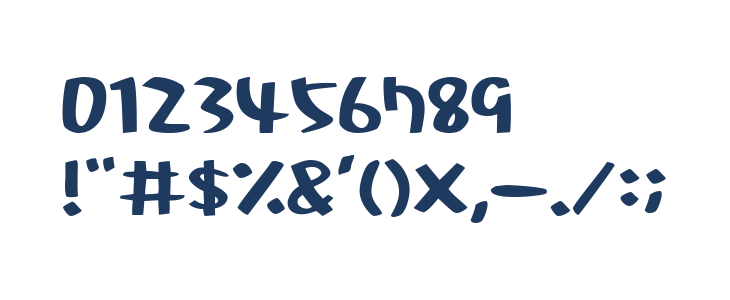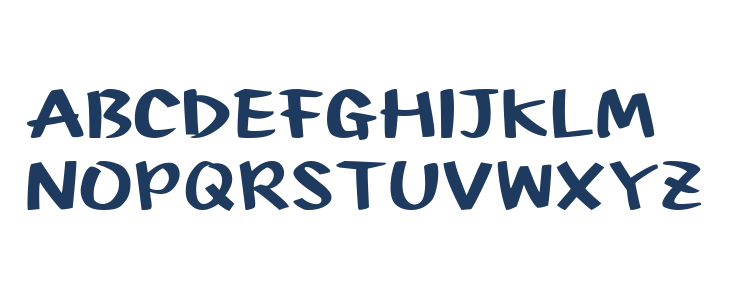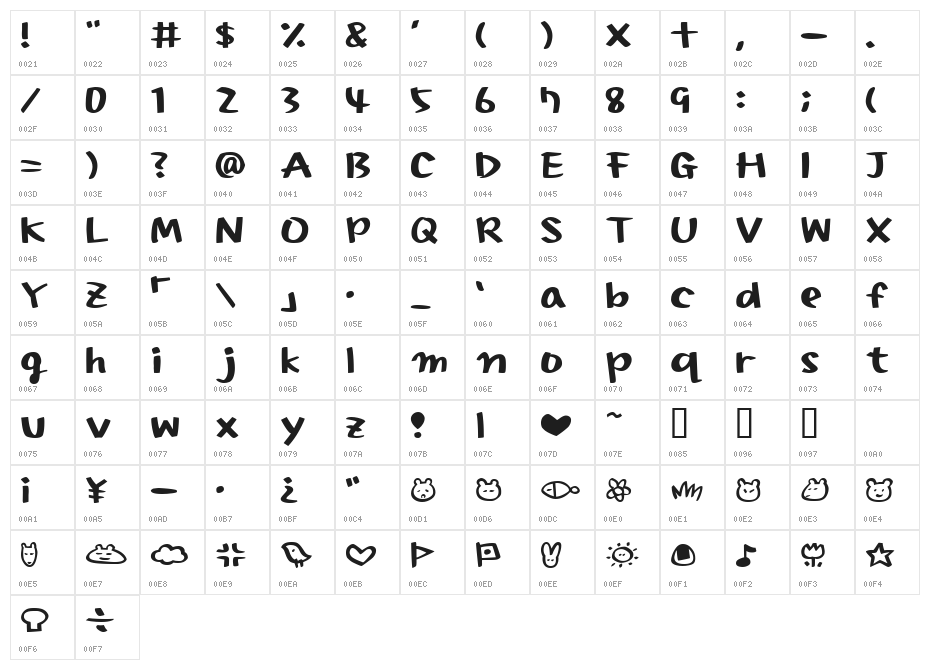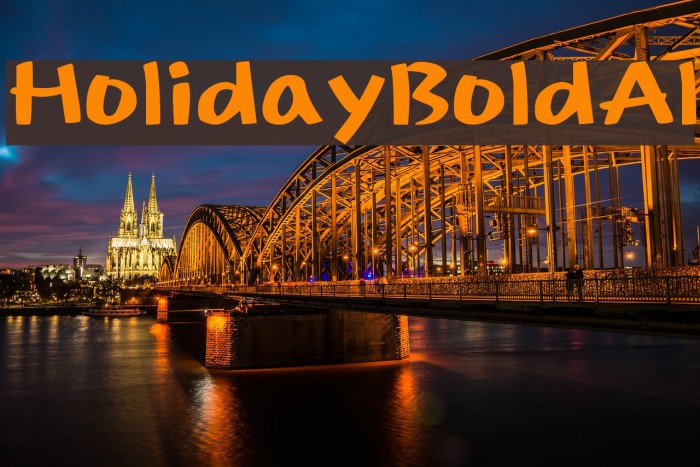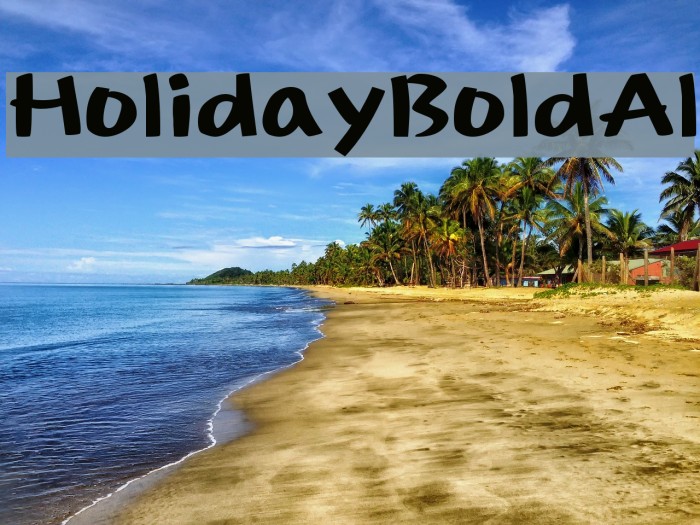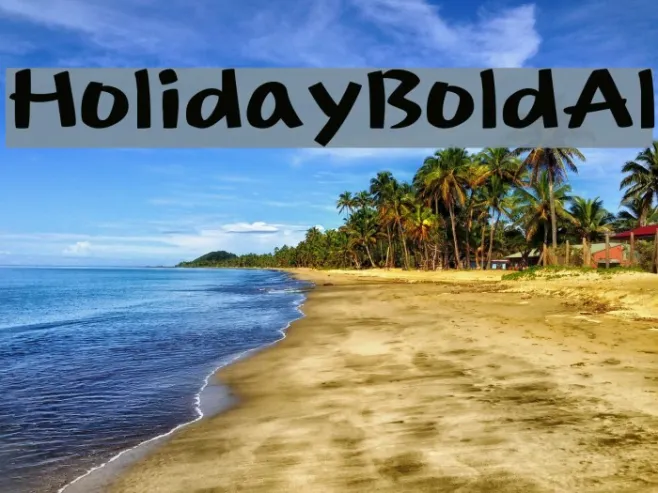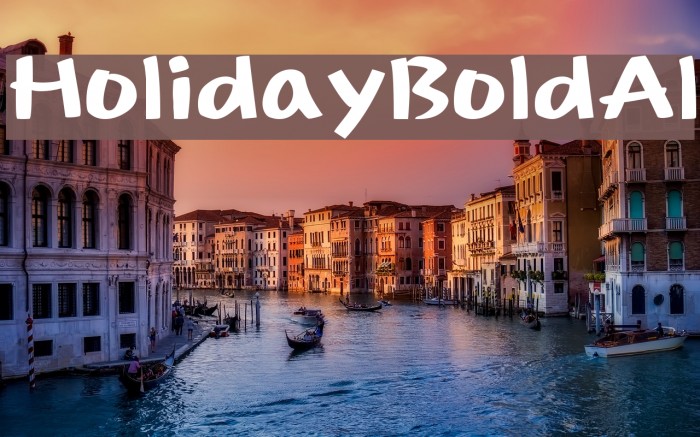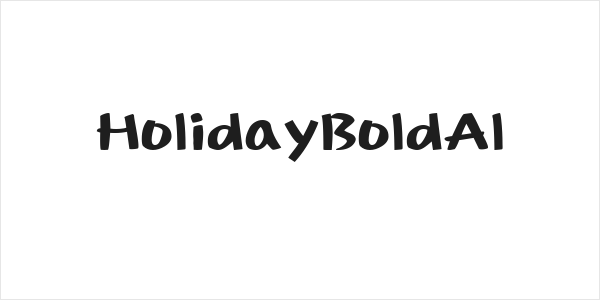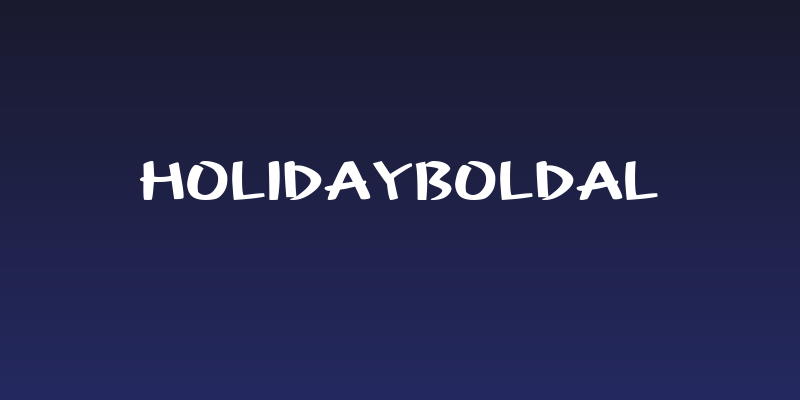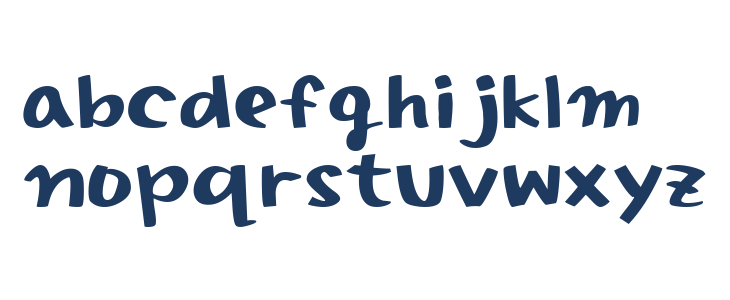
HolidayBoldAl Font
This playful and bold font features a handwritten style with a casual, friendly appearance. The letters are slightly tilted and have a dynamic, lively feel, making them perfect for projects that require a touch of whimsy and fun. The strokes are thick and rounded, providing a sense of warmth and approachability. The font maintains consistent weight throughout, ensuring readability while adding a unique character to each letter. Its informal style is ideal for creative projects that aim to convey a sense of joy and spontaneity.
| Proposed Projects | Ideal for greeting cards, children's books, playful branding, and event invitations. |